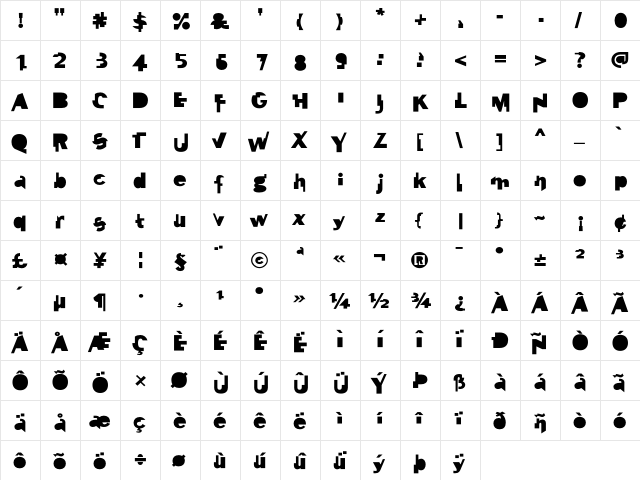
Janaki Black
Design Context for Janaki Typeface
Janaki is a composed and adaptable typeface that performs quietly and consistently across a wide range of design contexts.
Pro Tip: Pair Janaki with a font of contrasting weight or personality to build a more expressive typographic hierarchy.